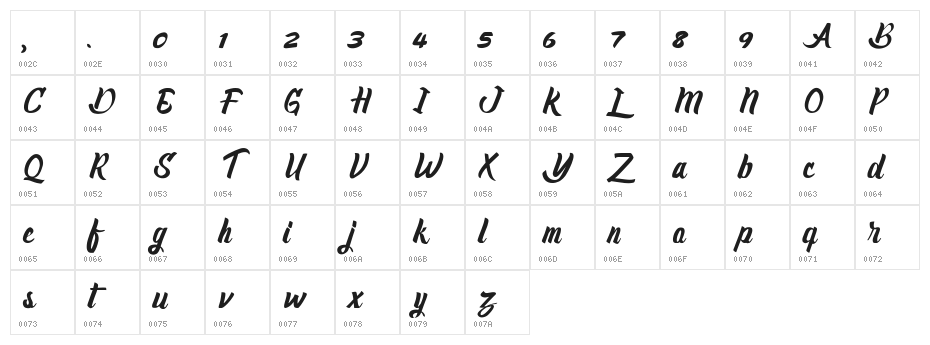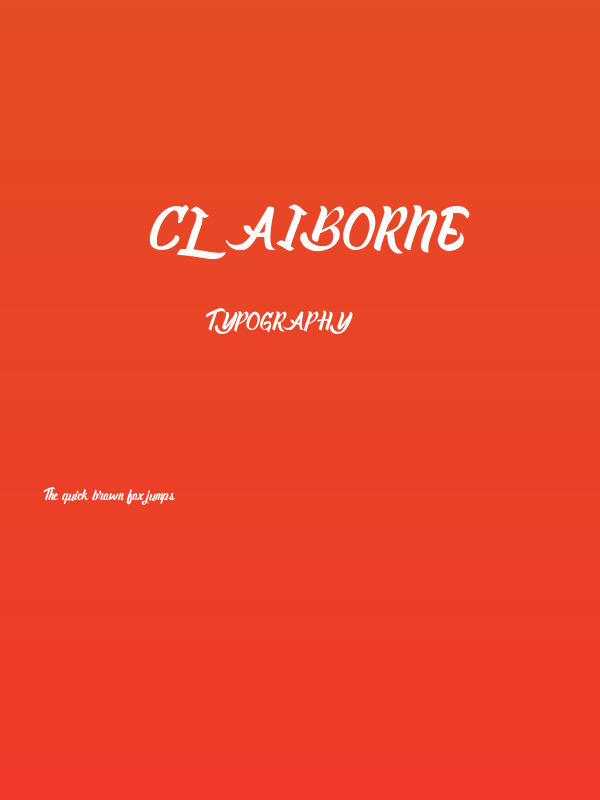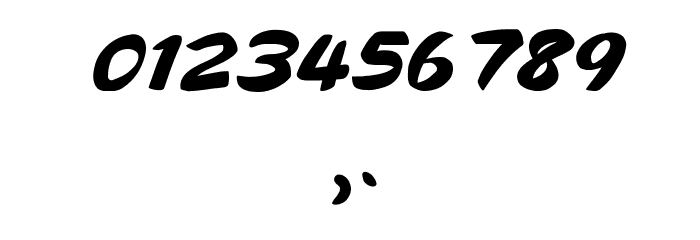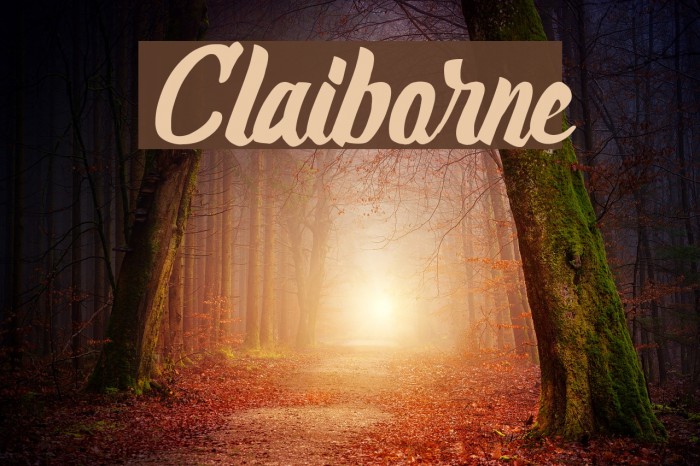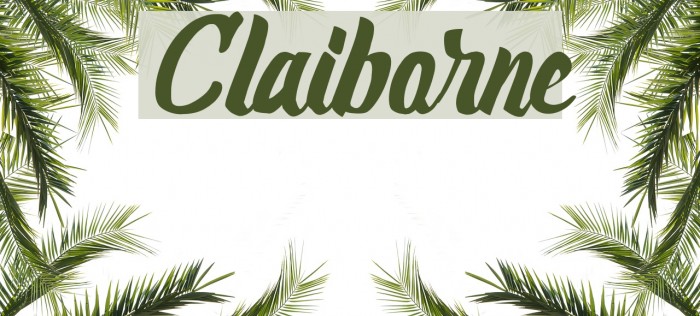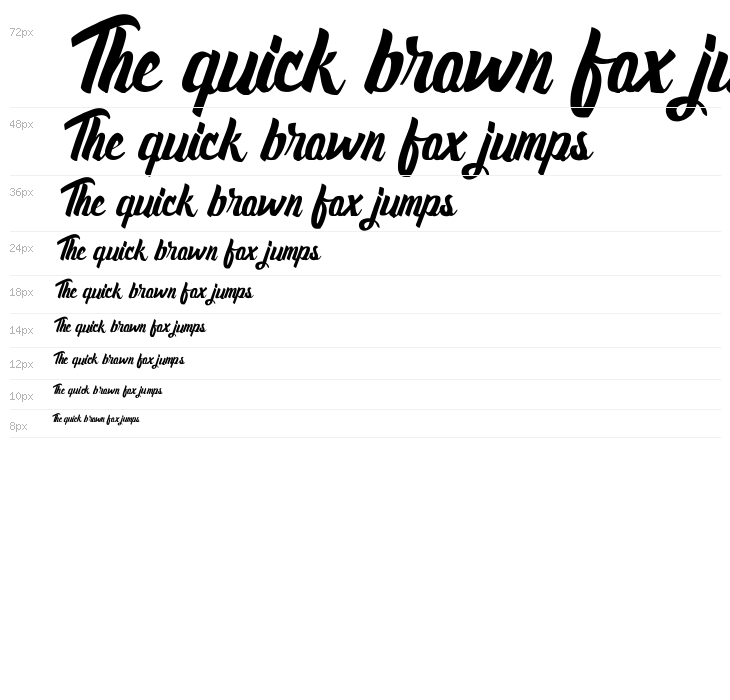
Claiborne Font
Claiborne Description
This font exudes a bold and dynamic presence, characterized by its flowing, cursive style that mimics the fluidity of handwriting. The letters are interconnected with smooth, sweeping strokes that give it a sense of motion and elegance. The uppercase letters stand tall with a slight slant, while the lowercase letters maintain a consistent rhythm and balance. The numerals are equally stylized, matching the overall aesthetic of the alphabet. This font is perfect for creating a sense of sophistication and flair, making it ideal for branding, invitations, and artistic projects.
CLAIBORNE UPPERCASE
CLAIBORNE LOWERCASE
CLAIBORNE OTHER CHARS